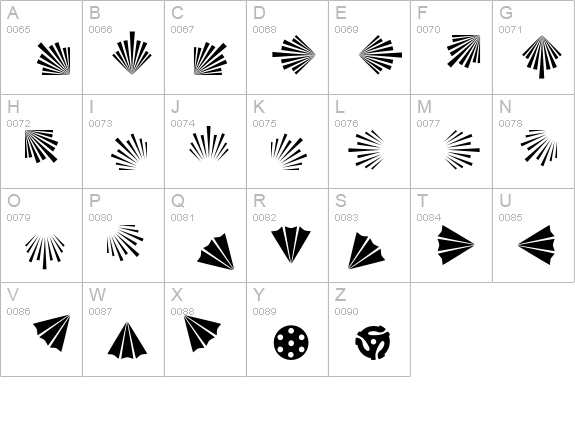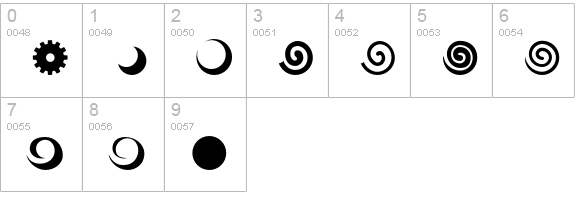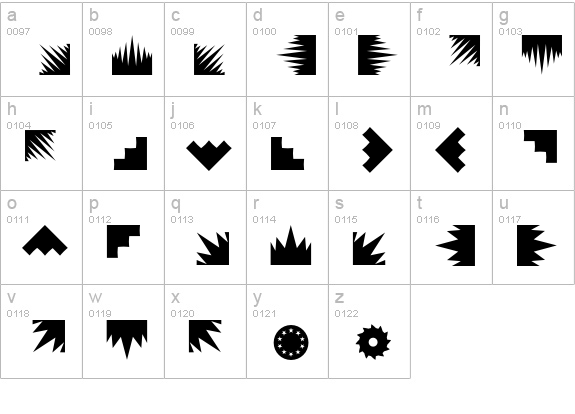
AltemusBordersTwo Font Details
AltemusBordersTwo is a beautiful and intricate font that exudes elegance and sophistication. This unique font features delicate borders that add a touch of charm to any design. Perfect for invitations, greeting cards, or any project that requires a touch of whimsy and style. AltemusBordersTwo is a versatile font that can be used for both personal and commercial projects. The best part? AltemusBordersTwo is completely free to download at FontsMarket.com. So whether you're a seasoned designer looking to add a new font to your collection or a beginner searching for the perfect font for your next project, AltemusBordersTwo has got you covered. Download this stunning font today and elevate your designs to a whole new level.